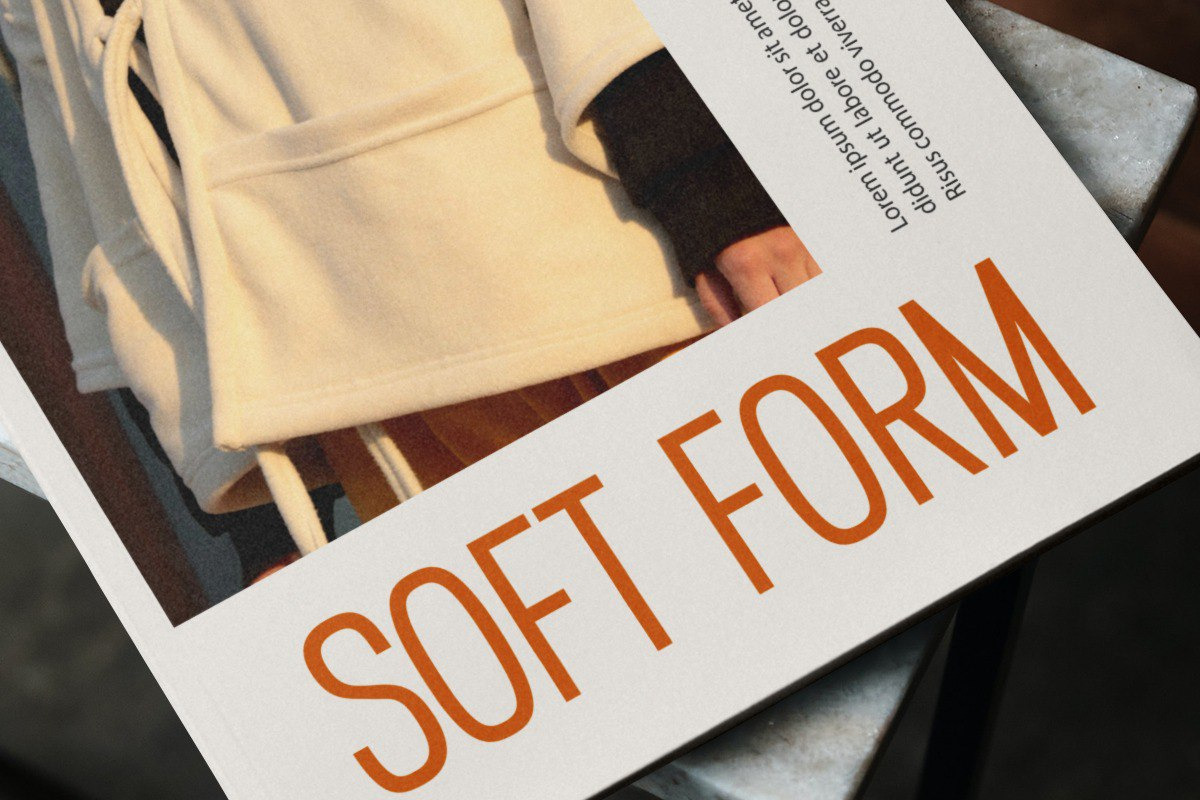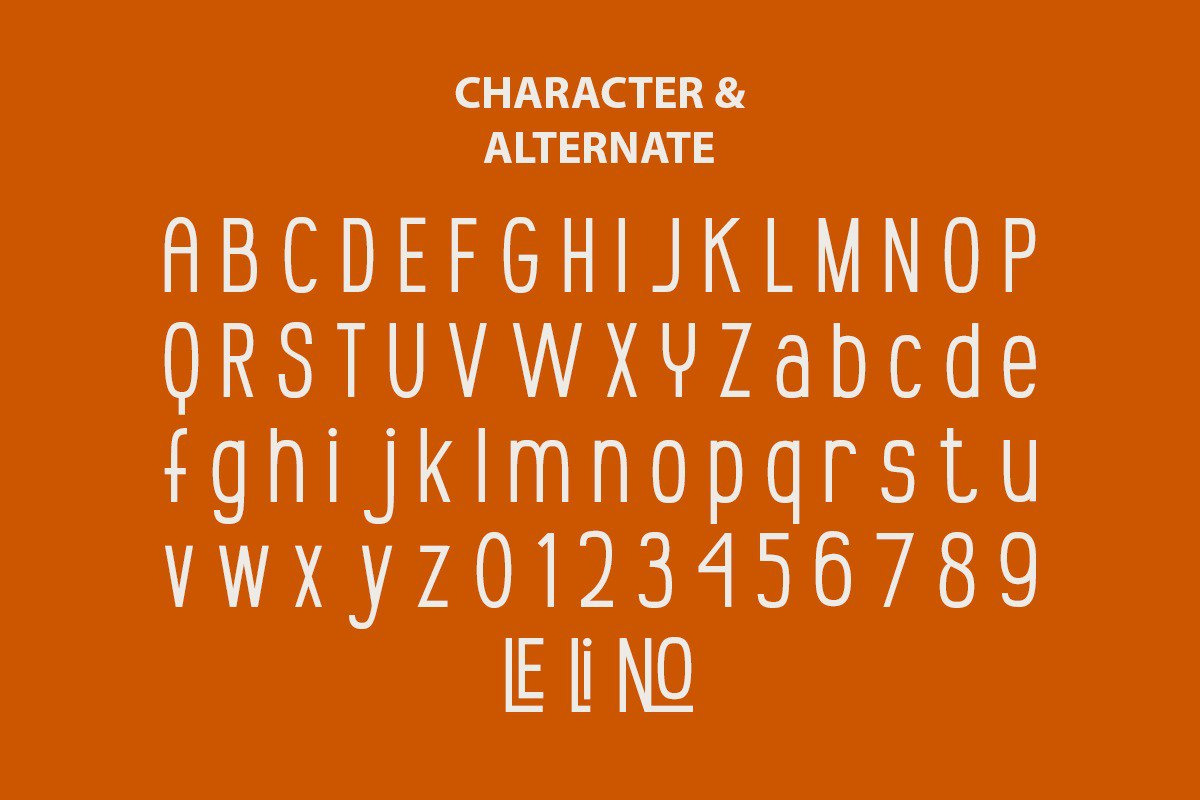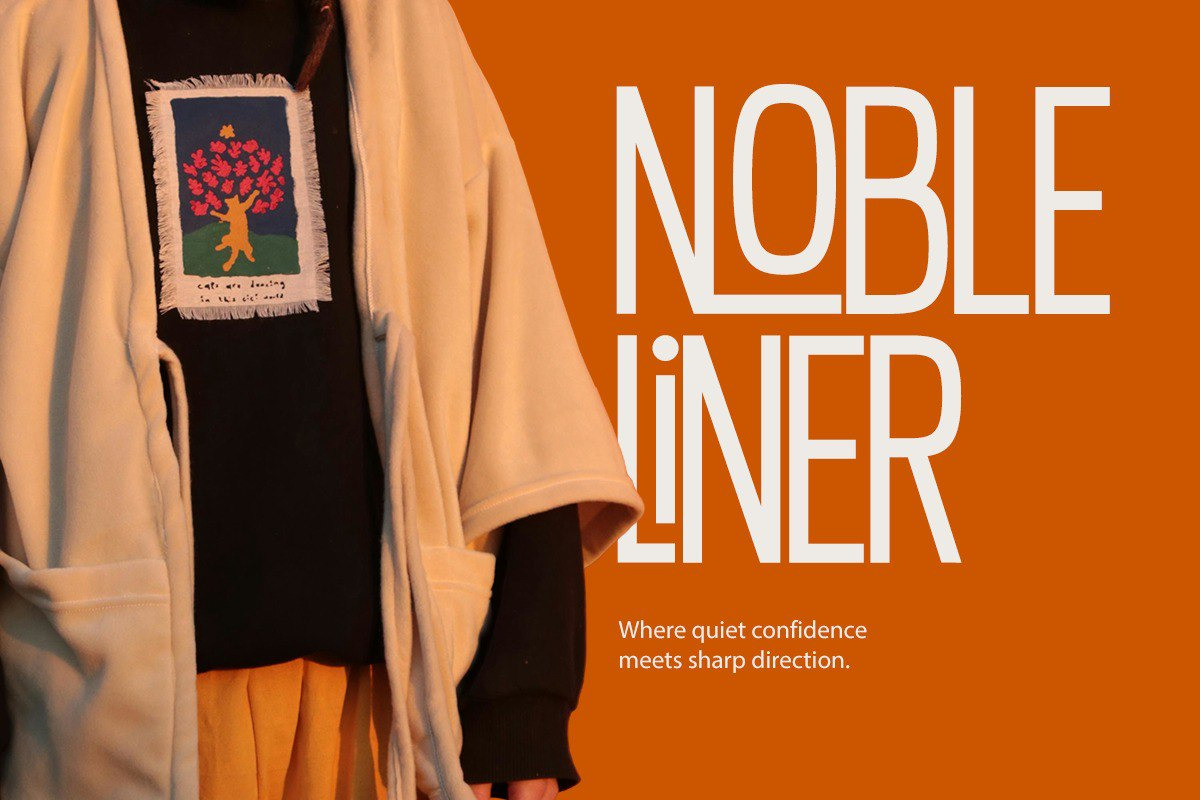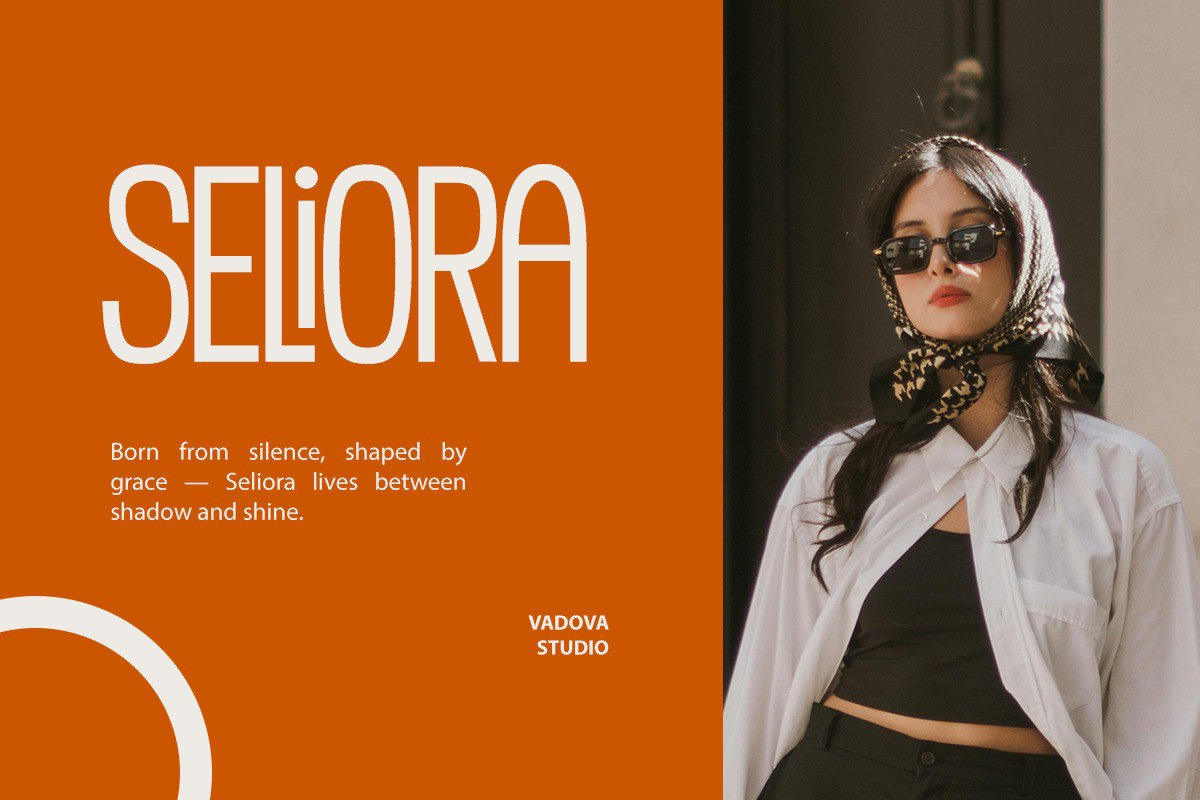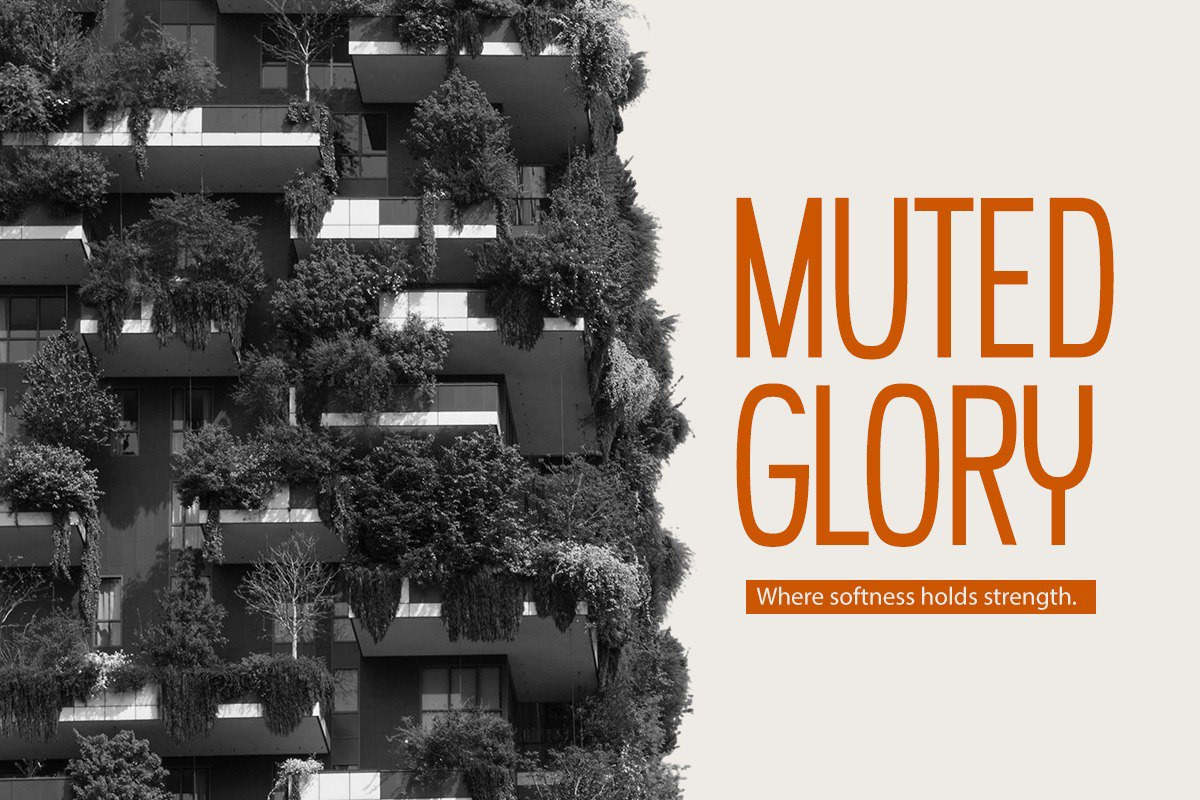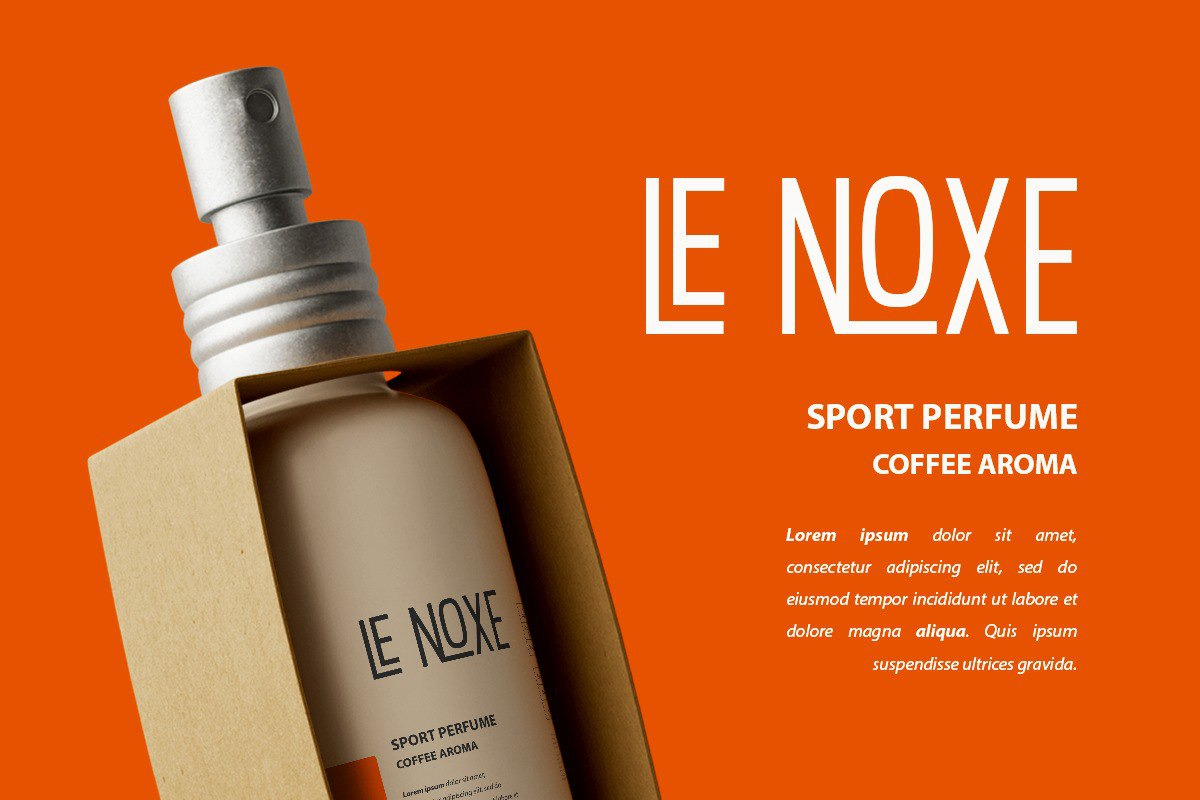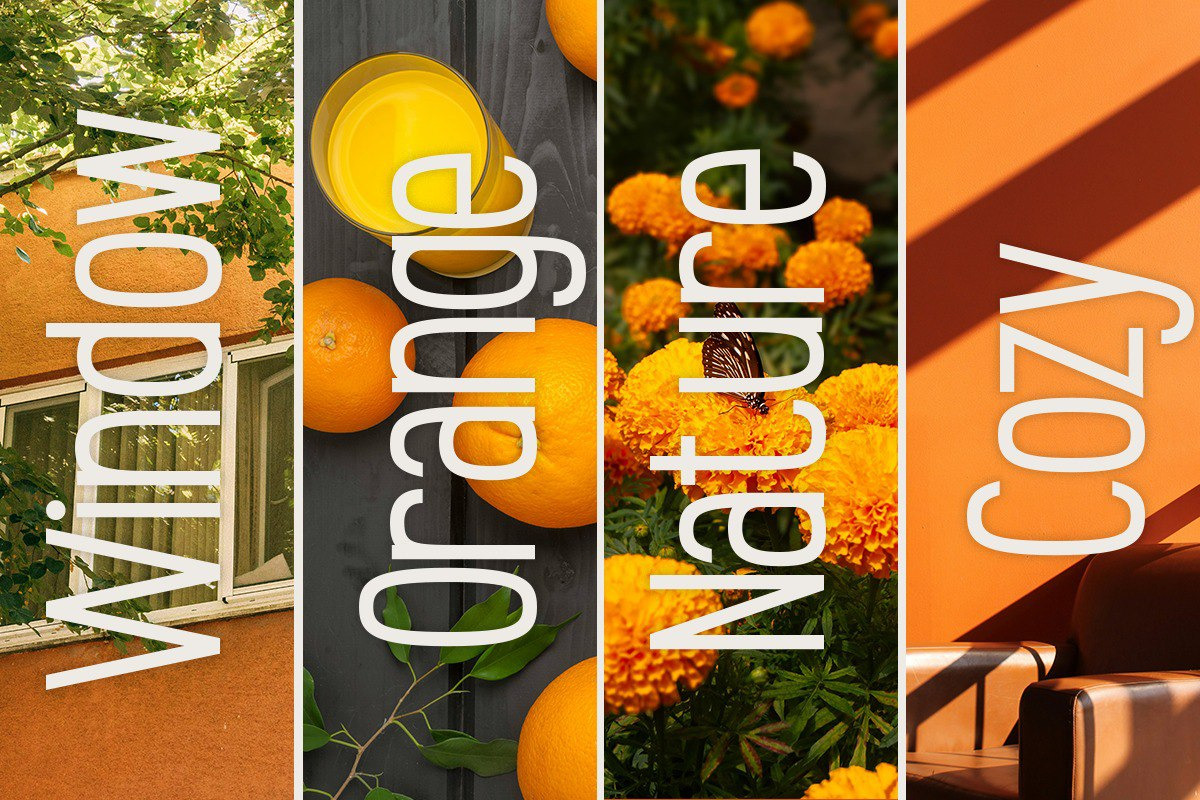
Leanova - Modern Condensed Display
Leanova is a modern condensed display font designed to deliver maximum impact in minimal space. Its tall, slim, and geometric letterforms give every design a stylish and contemporary presence, making it perfect for brands that need elegance with clarity. The condensed proportions allow bold headlines and striking logos to stand out, while still fitting seamlessly into layouts where space efficiency is essential. With its clean lines and sophisticated look, Leanova adds a premium touch to fashion campaigns, editorial magazines, Instagram branding, posters, and high-end packaging.
This font isn’t just typography—it’s a visual solution for creatives who want a balance of beauty, efficiency, and modern style. Leanlova’s refined condensed structure provides a timeless sophistication that works equally well across digital screens and print layouts. Whether for bold promotional posters or elegant corporate identities, this font ensures your message is both powerful and visually captivating.
Why Designers Love Leanova:
Modern condensed look – tall, slim proportions maximize space while maintaining impact.
Geometric precision – clean lines and sharp structure bring a professional edge.
Versatile usage – ideal for logos, branding, fashion, magazines, packaging, and social media.
Digital & print ready – optimized for both high-resolution print and online use.
Timeless style – trendy yet elegant, ensuring relevance across design fields.
Full uppercase & lowercase characters
Numerals and punctuation
Multilingual language support
Clean kerning & spacing for professional layouts
Best Use Cases:
Luxury branding and corporate identity
Fashion campaigns & editorial magazines
Instagram posts and social media graphics
Posters, flyers, and creative advertising
Modern packaging and product design
Bold website headlines and UI design